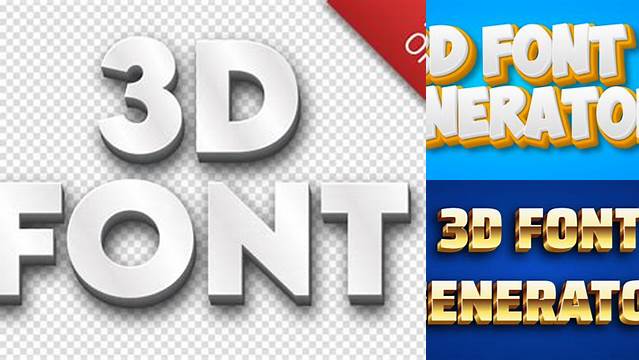
Free 3D Font Generator Online: Create Amazing Text Effects
Are you looking to add some visual flair to your designs? Want to make your text pop? Then, guys, you're in the right place! In this article, we'll dive deep into the world of 3D font generators and how you can use them online for free. We'll explore the benefits of using 3D fonts, discuss various online tools available, and even provide some tips and tricks for creating stunning text effects. So, let's get started and unleash your creativity!
Why Use 3D Fonts?
Let's talk about why using 3D fonts is a game-changer, especially when you're aiming to make a lasting impression. Traditional 2D fonts have their place, sure, but 3D fonts? They bring a whole new dimension (pun intended!) to your text. Think about it: logos, banners, presentations, even social media posts – 3D fonts can elevate them all. They grab attention, add depth, and make your message visually appealing. In today's fast-paced, visually-driven world, standing out is crucial, and 3D fonts are a fantastic way to do just that. They're not just about looking pretty; they're about making your content memorable and engaging. Whether you're designing a website, creating marketing materials, or just want to add some pizzazz to your personal projects, exploring the possibilities of 3D fonts is definitely worth your time. They can transform ordinary text into extraordinary visuals, and the best part is, you don't need to be a design expert to use them. Online 3D font generators make it incredibly easy to experiment and create stunning effects, so why not give it a try? You might be surprised at the impact it can have!
Advantages of Using 3D Fonts
There are numerous advantages to using 3D fonts, which contribute to their increasing popularity in graphic design and digital content creation. For starters, the visual impact of 3D fonts is undeniable. They add depth and dimension to text, making it stand out and capturing the viewer's attention more effectively than traditional 2D fonts. This is particularly useful in areas like logo design, where a unique and memorable visual identity is crucial. A 3D font can give a logo a professional and sophisticated look, helping it to resonate with the target audience. Moreover, 3D fonts offer versatility in design. They can be customized in various ways, including adjusting the depth, perspective, and lighting effects. This allows designers to create a wide range of looks, from subtle and elegant to bold and dramatic. This flexibility makes 3D fonts suitable for a variety of applications, from website headers and banners to posters and promotional materials. Another significant advantage is the ability of 3D fonts to enhance readability. While some decorative fonts can be challenging to read, well-designed 3D fonts maintain clarity while adding visual interest. This is especially important in contexts where the message needs to be conveyed quickly and effectively, such as in advertising or signage. By adding depth and dimension, 3D fonts can make text more engaging and easier to process, ultimately improving communication. In summary, the use of 3D fonts can significantly enhance the visual appeal and effectiveness of your designs, making them a valuable tool for anyone looking to make a strong impression.
Where to Use 3D Fonts
Okay, so you're sold on the idea of 3D fonts, but where can you actually use them? The answer is pretty much anywhere you want to make a statement! Think about logos – a 3D logo can instantly elevate a brand's image, making it look more modern and professional. Imagine a sleek, dimensional logo on a website header or business card; it just screams sophistication. Then there are website headers and banners. These are prime real estate for catching a visitor's eye, and a striking 3D font can do wonders. It adds depth and interest, making your site stand out from the sea of flat designs out there. Don't forget presentations! A 3D title slide or key points highlighted in 3D can keep your audience engaged and show that you've put extra thought into your visuals. Social media is another fantastic playground for 3D fonts. Eye-catching graphics are essential for grabbing attention in the scroll-fest, and a 3D font can make your posts pop. Think about creating 3D text for promotional materials like posters and flyers too. Whether you're advertising an event, a product, or a service, a bold 3D font can make your message unmissable. And hey, even personal projects can benefit! If you're designing invitations, cards, or even just sprucing up your social media profiles, 3D fonts can add that extra touch of flair. The possibilities are truly endless. Anywhere you want to make an impact, 3D fonts can help you do it.
Free Online 3D Font Generators: A Quick Overview
Now, let's dive into the exciting world of free online 3D font generators. The internet is brimming with tools that allow you to create stunning 3D text effects without spending a dime. These generators are incredibly user-friendly, making them accessible to both design novices and seasoned professionals. You don't need to be a graphic design guru or have expensive software to get started. Most of these tools work right in your web browser, so there's no need to download or install anything. You simply type in your text, choose a font, customize the 3D settings, and voila! You have a unique 3D text effect ready to use. We're talking about tools that let you adjust the depth, perspective, lighting, and even add textures and shadows to your text. Some generators offer a wide range of pre-set styles and templates, while others give you the freedom to tweak every little detail. This means you can create everything from subtle, elegant 3D text to bold, in-your-face designs. Whether you're looking to create a logo, a banner, a social media graphic, or anything in between, these free online generators have you covered. They're a fantastic resource for anyone looking to add a professional touch to their visuals without breaking the bank. So, let's explore some of the top contenders and see what they have to offer!
List of Popular Free Online 3D Font Generators
When it comes to free online 3D font generators, you're spoiled for choice! The internet is packed with tools that can help you transform ordinary text into eye-catching 3D designs, and the best part is, many of them won't cost you a penny. Let's take a look at some of the most popular options out there. First up, we have FlamingText. This generator is a favorite for its ease of use and the sheer number of effects and styles it offers. You can create everything from fiery text to icy designs with just a few clicks. Then there's 3D Text Maker, which is known for its realistic 3D rendering capabilities. It lets you play with lighting, shadows, and textures to create truly stunning text effects. If you're looking for something a bit more creative, check out RenderFonts. This tool allows you to add textures and backgrounds to your 3D text, making it perfect for creating unique graphics. Another great option is TextPro, which offers a range of stylish 3D text effects that are perfect for social media and branding. And let's not forget Online Text Effects, which has a vast library of pre-designed templates that you can customize to your liking. These are just a few of the many free online 3D font generators available. Each one has its own strengths and features, so it's worth experimenting to find the one that best suits your needs. Whether you're a beginner or a seasoned designer, these tools can help you create professional-looking 3D text effects without the need for expensive software or complicated design skills. So go ahead, explore your options and start creating!
Comparing Features and Limitations
Okay, so we've talked about some of the top free online 3D font generators, but how do you choose the right one for your needs? It's all about understanding their features and limitations. Let's break it down. When it comes to features, think about what's most important to you. Do you need a wide variety of fonts to choose from? Some generators offer a limited selection, while others have a vast library. Customization options are another key factor. Can you adjust the depth, perspective, and lighting of your 3D text? Can you add textures, shadows, or gradients? The more customization options, the more control you have over the final result. Ease of use is also crucial, especially if you're a beginner. Some generators have a simple, intuitive interface, while others can be a bit more complex. Consider the output format as well. Can you download your 3D text as a PNG, JPG, or other file types? This is important for compatibility with different design software and platforms. Now, let's talk about limitations. Free online 3D font generators often have certain restrictions. Some may watermark your designs, while others may limit the resolution of the output files. You might also encounter ads or pop-ups while using the free version. And, of course, the features available in the free version may be limited compared to the paid version. For example, you might have access to fewer fonts, customization options, or export formats. It's essential to weigh these limitations against your needs and budget. If you only need to create 3D text occasionally, a free generator might be perfect. But if you're a professional designer or need advanced features, you might consider investing in a paid tool. Ultimately, the best way to choose a generator is to try out a few different options and see which one works best for you.
How to Use a 3D Font Generator: A Step-by-Step Guide
Ready to create some awesome 3D text? Don't worry, it's easier than you might think! Most online 3D font generators follow a pretty straightforward process. Let's walk through a step-by-step guide so you can get started. First, you'll want to choose a 3D font generator. We've already discussed some popular options, so pick one that seems like a good fit for your needs. Once you've chosen a generator, the first step is usually to enter your text. There's typically a text box where you can type in the words or phrases you want to transform into 3D. Next, you'll select a font. Browse through the available fonts and choose one that matches the style and tone of your project. Some generators offer a wide range of fonts, while others have a more limited selection, so keep that in mind. Now comes the fun part: customization! This is where you can really make your 3D text stand out. Most generators offer options to adjust the depth, perspective, and lighting of your text. You can also change the colors, add textures, and apply shadows. Experiment with different settings to see what looks best. Once you're happy with your design, it's time to download it. Look for a download button or option, and choose your preferred file format. PNG is a popular choice for transparent backgrounds, while JPG is good for general use. And that's it! You've created your own 3D text effect. Now you can use it in your logos, banners, social media graphics, or any other project you have in mind. With a little practice, you'll be creating stunning 3D text in no time!
Choosing the Right Font and Style
Selecting the right font and style is crucial when creating 3D text. It's not just about making your text look cool; it's about conveying the right message and creating a visual impact that aligns with your brand or project. Think of your font as the voice of your text. A bold, blocky font might scream strength and confidence, while a sleek, modern font might convey sophistication and innovation. So, the first step is to consider the purpose of your 3D text. What message are you trying to communicate? Who is your target audience? These questions will help you narrow down your font choices. For example, if you're designing a logo for a tech company, you might opt for a clean, futuristic font. On the other hand, if you're creating a poster for a rock concert, a bold, edgy font might be more appropriate. Once you have a general idea of the type of font you want, start browsing through the available options in your 3D font generator. Pay attention to the different styles and weights. Do you want a regular, bold, or italic version? How does the font look in 3D? Some fonts translate better to 3D than others, so it's important to experiment. Also, consider the legibility of the font. While a fancy, decorative font might look cool, it's not much use if people can't read it. Make sure your 3D text is clear and easy to understand. Finally, don't be afraid to mix and match fonts and styles. Sometimes, combining different fonts can create a unique and eye-catching effect. Just be sure to do it tastefully and avoid using too many fonts in one design. With a little experimentation, you'll find the perfect font and style to make your 3D text shine.
Customizing 3D Effects (Depth, Perspective, Lighting, etc.)
Once you've chosen your font, the real magic happens when you start customizing the 3D effects. This is where you can truly transform your text and create a unique visual impact. Most online 3D font generators offer a range of customization options, allowing you to adjust various parameters to achieve the perfect look. Let's start with depth. The depth of your 3D text refers to how far it extends into the third dimension. Increasing the depth can make your text look more prominent and three-dimensional, while decreasing it can create a more subtle effect. Experiment with different depth settings to see what works best for your design. Perspective is another key factor. It determines the angle at which your 3D text is viewed. Adjusting the perspective can create a sense of realism and depth, making your text appear to pop off the screen. Play around with different perspective settings to find the angle that looks most visually appealing. Lighting is crucial for creating a realistic 3D effect. The way light interacts with your text can dramatically change its appearance. Most generators allow you to adjust the direction, intensity, and color of the light. You can also add shadows to enhance the three-dimensional effect. Experiment with different lighting setups to create different moods and effects. In addition to depth, perspective, and lighting, many generators offer other customization options, such as textures, gradients, and outlines. Textures can add a realistic feel to your 3D text, making it look like it's made of metal, wood, or other materials. Gradients can create a smooth color transition, adding depth and visual interest. And outlines can help your text stand out from the background. The key to successful 3D text customization is experimentation. Don't be afraid to try different settings and see what happens. With a little practice, you'll be able to create stunning 3D text effects that will impress your audience.
So there you have it, folks! We've explored the exciting world of 3D font generators and how you can use them online for free to create stunning text effects. From understanding the advantages of 3D fonts to learning tips and tricks for customization, you're now equipped to take your designs to the next level. Remember, 3D fonts can add depth, dimension, and visual interest to your projects, making them more engaging and memorable. Whether you're designing a logo, a banner, or a social media graphic, 3D text can help you make a statement. And with the wealth of free online 3D font generators available, there's no limit to what you can create. So, go ahead, unleash your creativity and start experimenting with 3D fonts today. You might be surprised at the amazing results you can achieve!